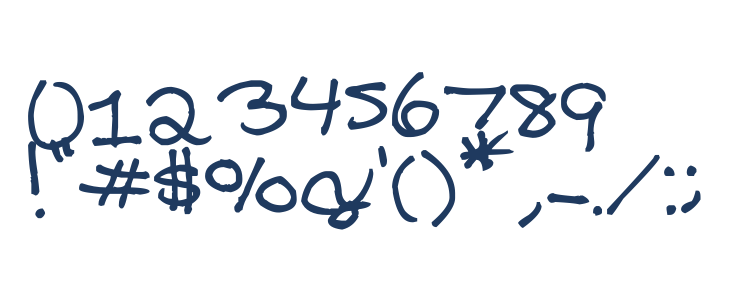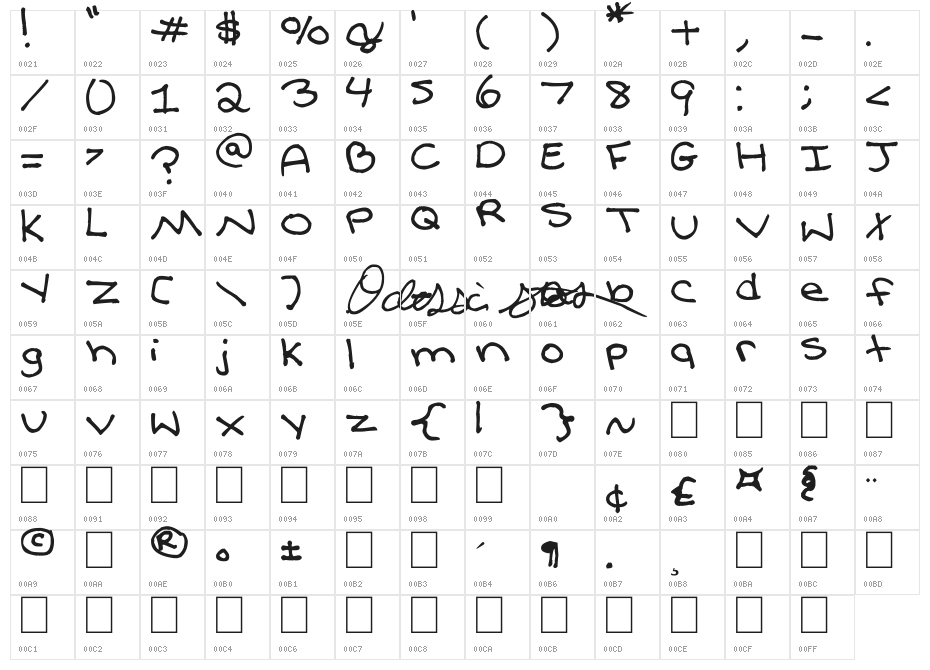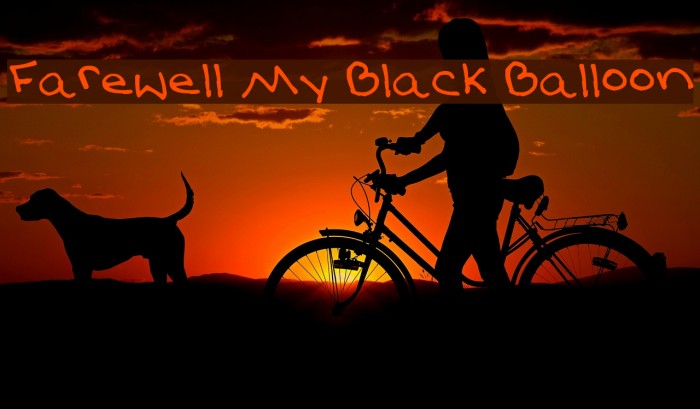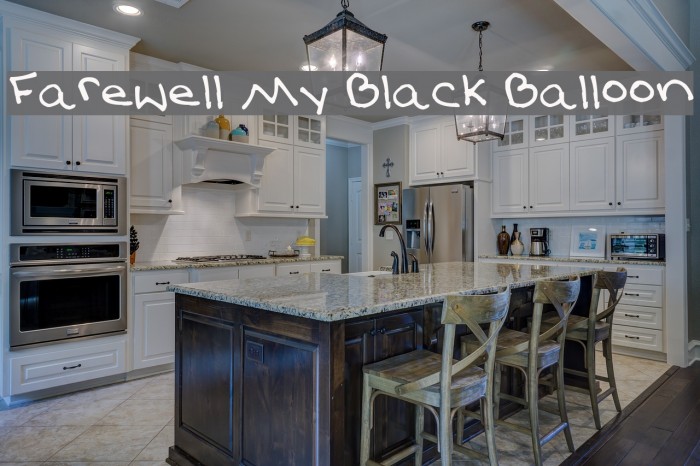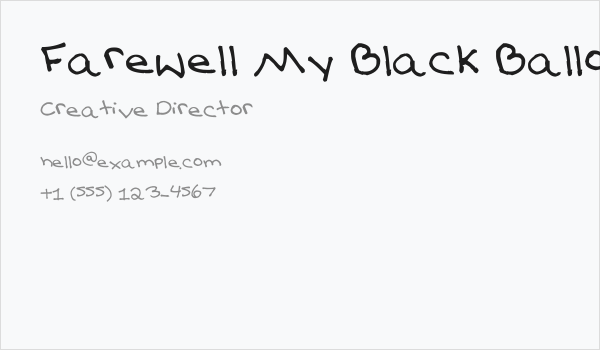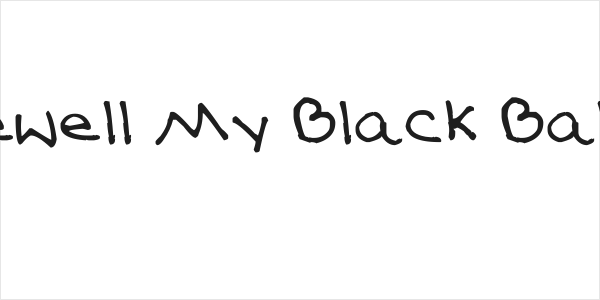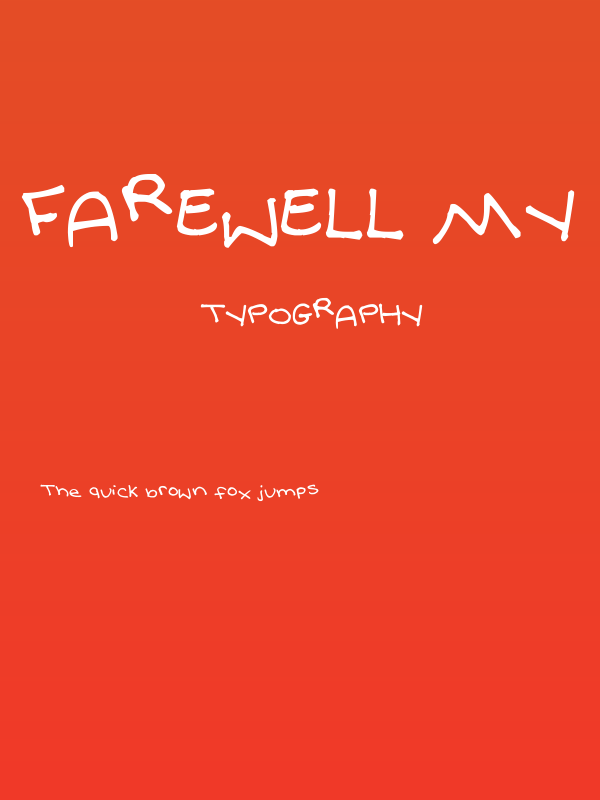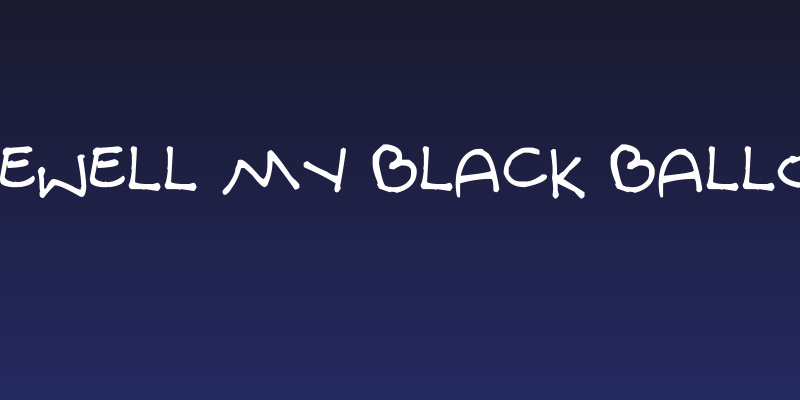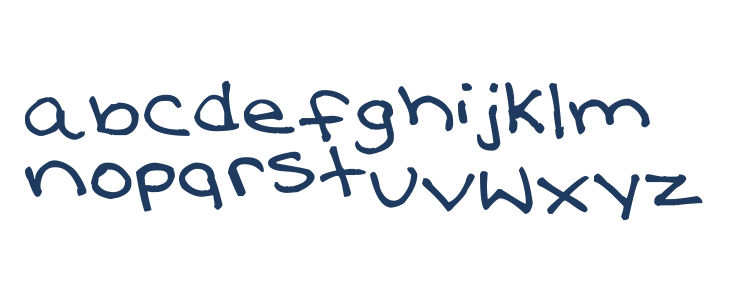
Farewell My Black Balloon Font
Farewell My Black Balloon Description
This font exudes a playful and informal style, characterized by its hand-drawn appearance. The letters are uneven and slightly irregular, giving it a casual and approachable feel. The strokes are bold and consistent in width, contributing to a cohesive look despite the whimsical nature. The characters are well-spaced, ensuring readability while maintaining a lively aesthetic. This font is perfect for projects that require a personal touch, such as children's books, greeting cards, or creative branding materials. Its unique style makes it stand out, adding a sense of fun and creativity to any design.
| Use Case | Headlines, Informal Text, Creative Projects |
| Proposed Projects | Ideal for children's books, greeting cards, creative branding, and informal invitations. |